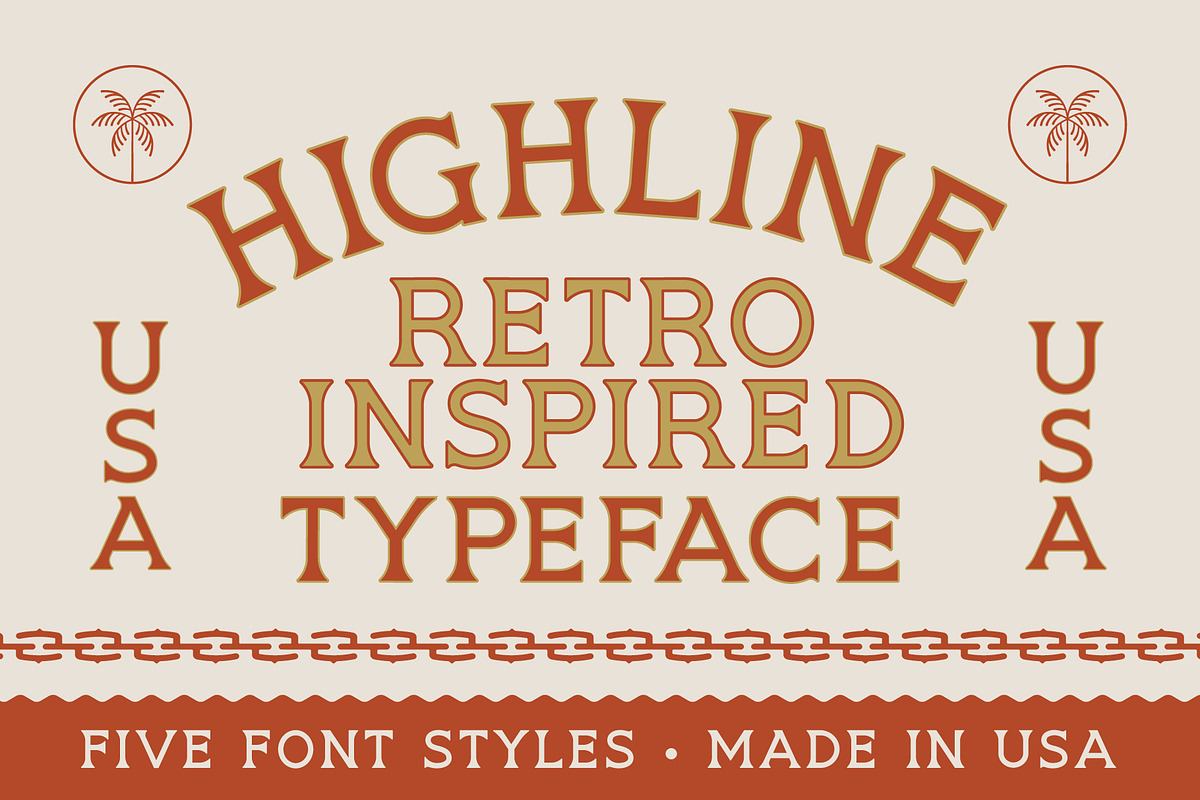
HIGHLINE Font | Vintage Font Free Download
The HIGHLINE Font | Vintage Font Free Download is a bold and nostalgic typeface inspired by retro signage and classic typography. Perfect for branding, logos, posters, product packaging, and retro-themed designs, this font brings a timeless vintage look to your creative projects.
With its strong letterforms and clean lines, HIGHLINE combines modern legibility with the charm of vintage design. It includes uppercase and lowercase characters, numbers, punctuation, and multilingual support, making it versatile for a range of applications.